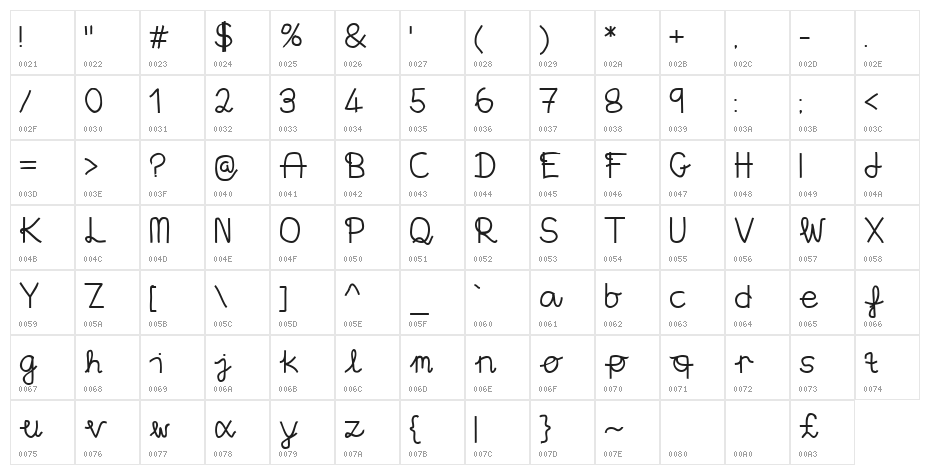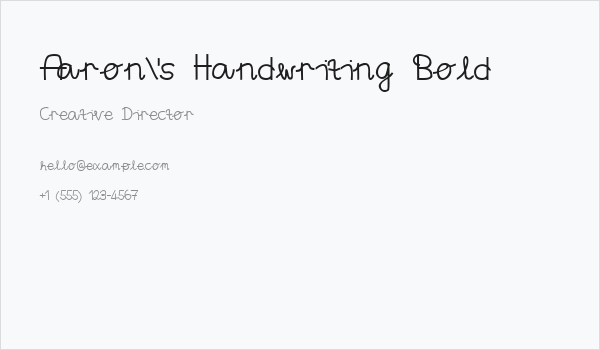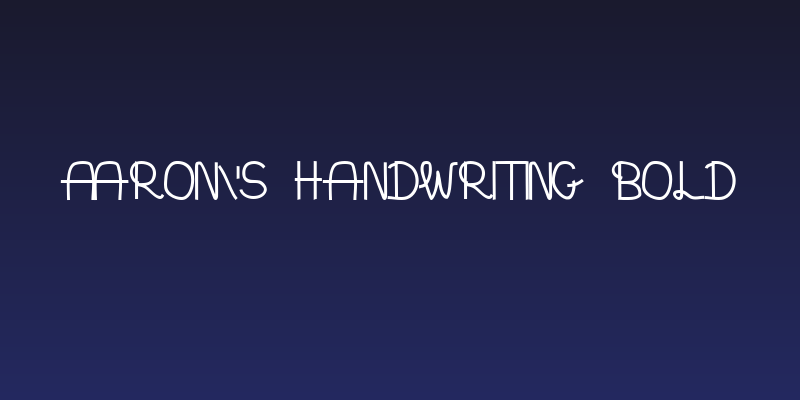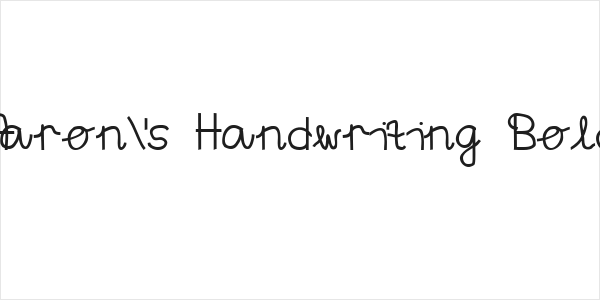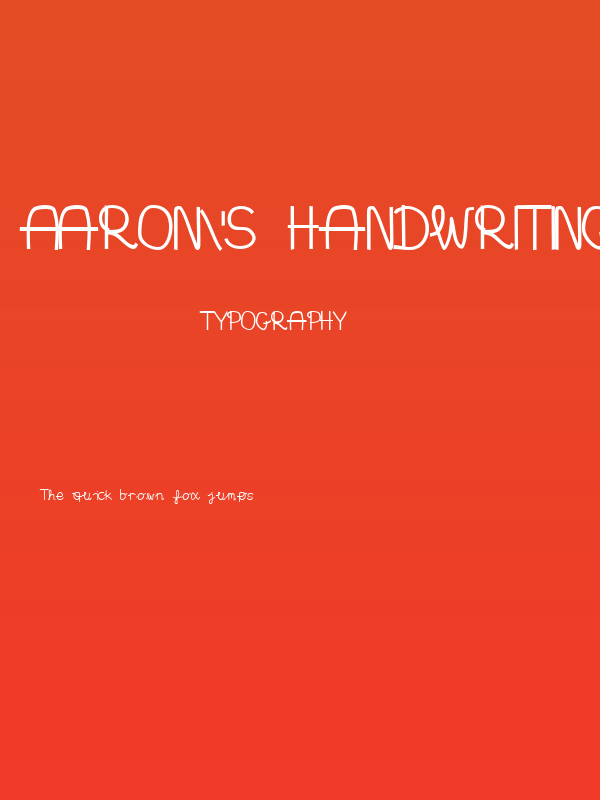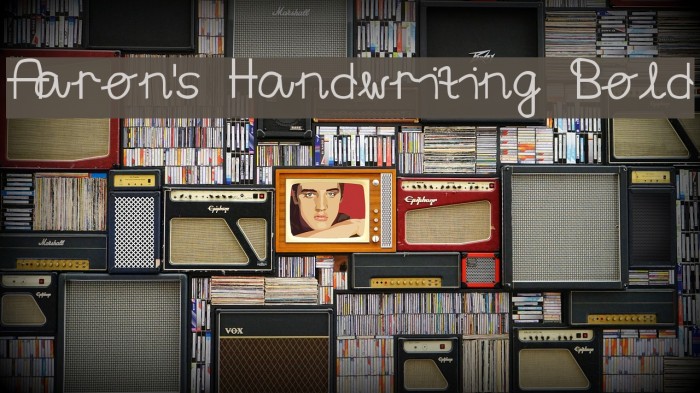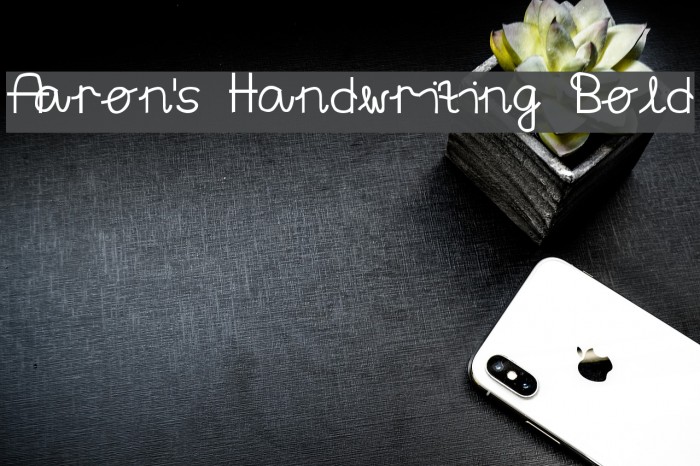
Aaron's Handwriting Bold Font
This font exudes a playful and casual handwritten style, characterized by its bold strokes and whimsical curves. Each letter is crafted with a sense of spontaneity, giving it a personal and informal touch. The uppercase letters are distinctively tall and narrow, while the lowercase letters maintain a consistent flow with rounded edges. Numbers and special characters follow the same playful aesthetic, making them easily recognizable and visually appealing. The overall design is reminiscent of a child's handwriting, yet with a refined and polished finish that makes it suitable for various creative applications.
| Proposed Projects | Ideal for greeting cards, children's books, playful branding, and informal invitations. |
| Author | Fonts by Dieter Steffmann |